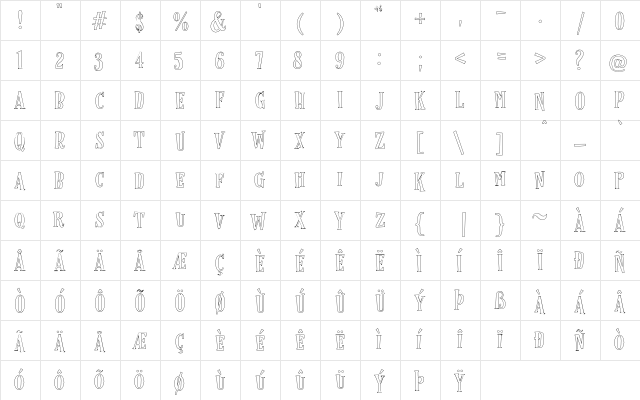
Les Paul Outline
| Style | Outline |
| Foundry | Pavel Korzhenko |
| Designer | Pavel Korzhenko |
Design Context for Les Paul Typeface
Les Paul brings ornamental detail and strong personality to headlines and identities, where visual impact matters more than quiet functionality.
Font Pairing: Pair with a clean neutral sans-serif for body copy to let Les Paul's character lead without overwhelming the composition.
Pro Tip: Treat Les Paul as the centrepiece of your typographic hierarchy. One strong heading set in a decorative face can carry an entire layout.